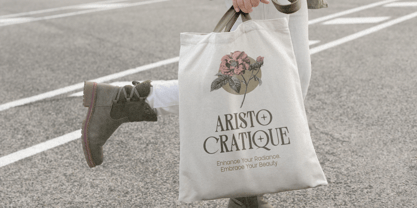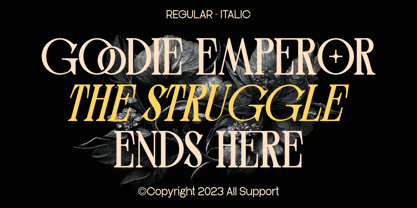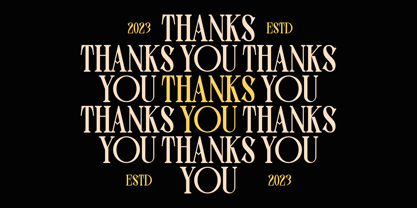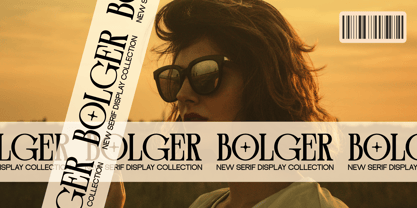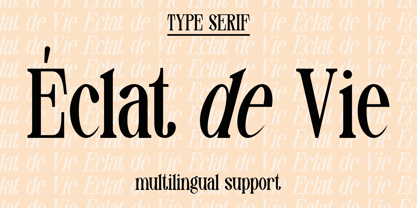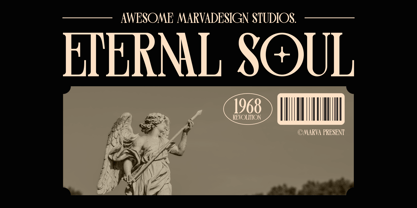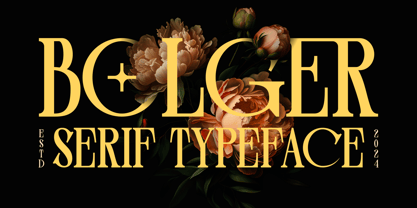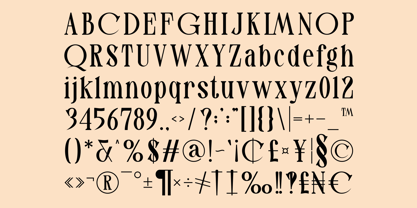
Bolger
by Marvadesign
The Bolger Font Family was designed by Febrie Setiawan and published by Marvadesign. Bolger contains 2 styles and family package options. More about this family
Introducing Bolger an elegant and sophisticated serif typeface, designed to exude a sense of luxury, tradition, and refinement. With its high-contrast letterforms, sharp serifs, and intricate ligatures, this typeface is ideal for branding, editorial design, and high-end packaging.
The inclusion of alternates and ligature support enhances the typographic experience, allowing for customization and unique compositions. The font features a rich set of glyphs, totaling 264 characters, ensuring versatility in different design applications. Its classic style is balanced with a contemporary touch, making it suitable for display purposes such as logos, invitations, fashion branding, and luxury product packaging.
Additionally, the typography's distinctive aesthetic is complemented by subtle ornamental details, such as circular accents and elongated strokes, which contribute to its sophisticated and timeless appeal. This typeface seamlessly blends historical serif traditions with modern stylistic elements, making it an excellent choice for designers seeking a refined and visually captivating font.